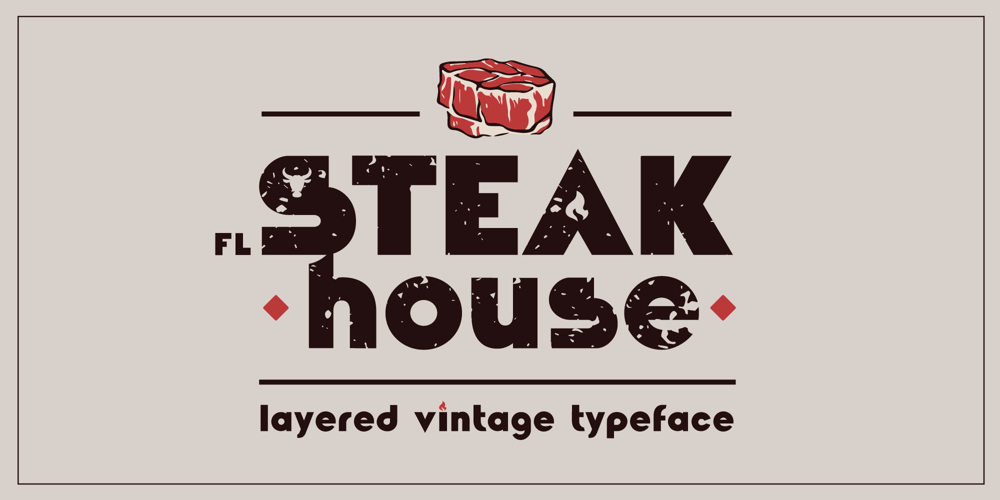
Fl Steakhouse
Fl Steakhouse font
Fl Steakhouse Font Family was designed by Evgeny Dneprovsky and published by Fractal Font Factory. Fl Steakhouse contains 4 styles and family package options. Fl Steakhouse is a multi-layered vintage font designed for logos and headers, grilling-related products, steaks and more. The font contains 4 writing styles such as: base, shadow, inner shadow and rough.